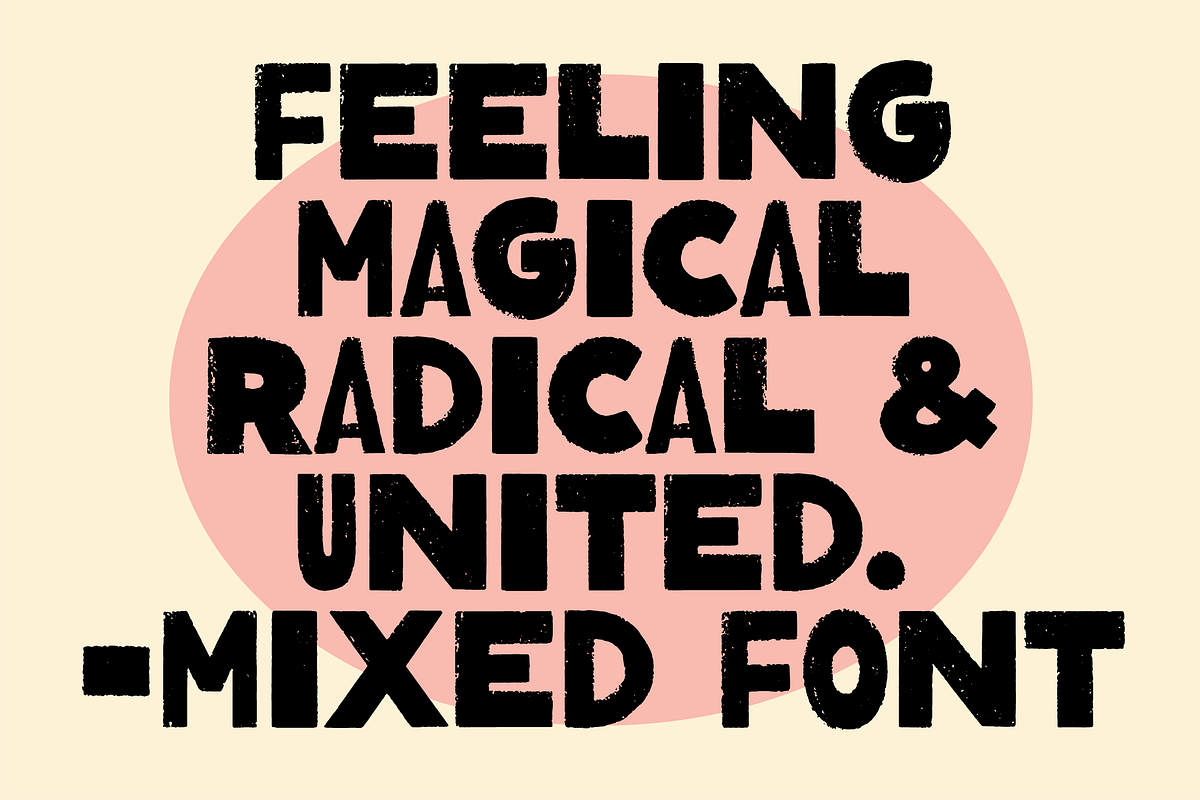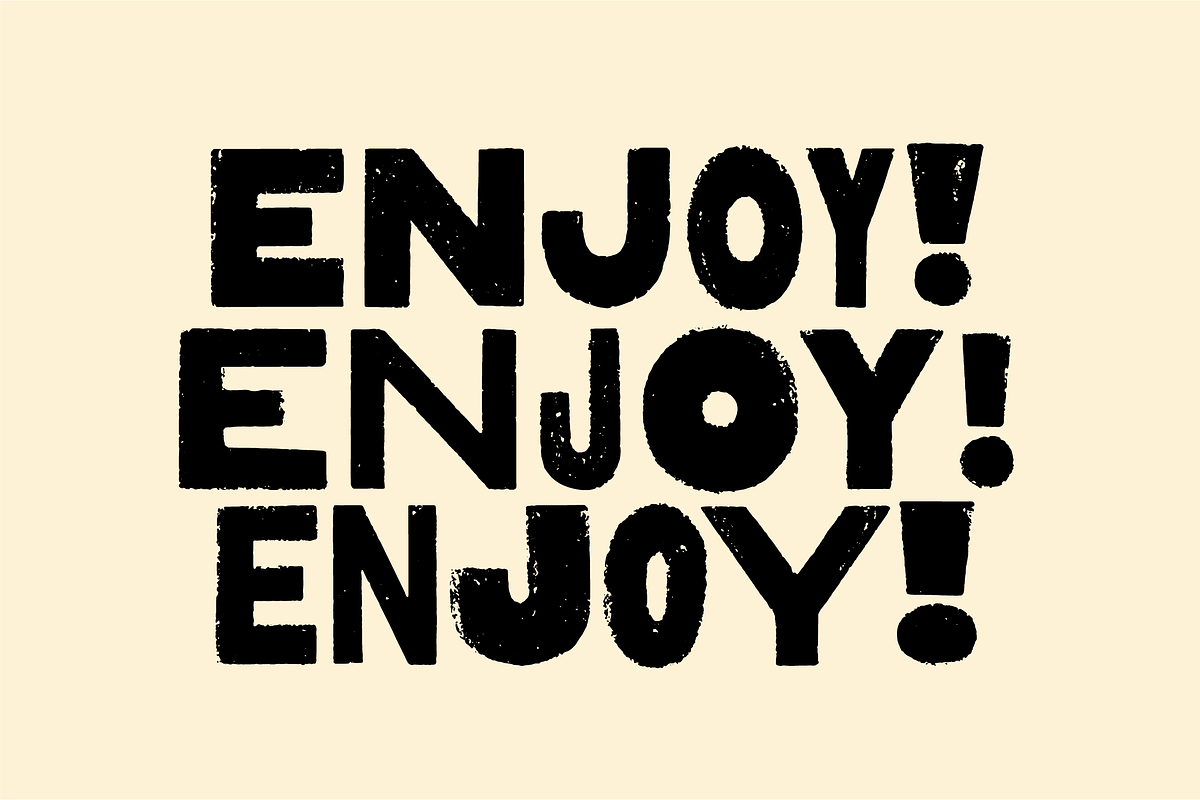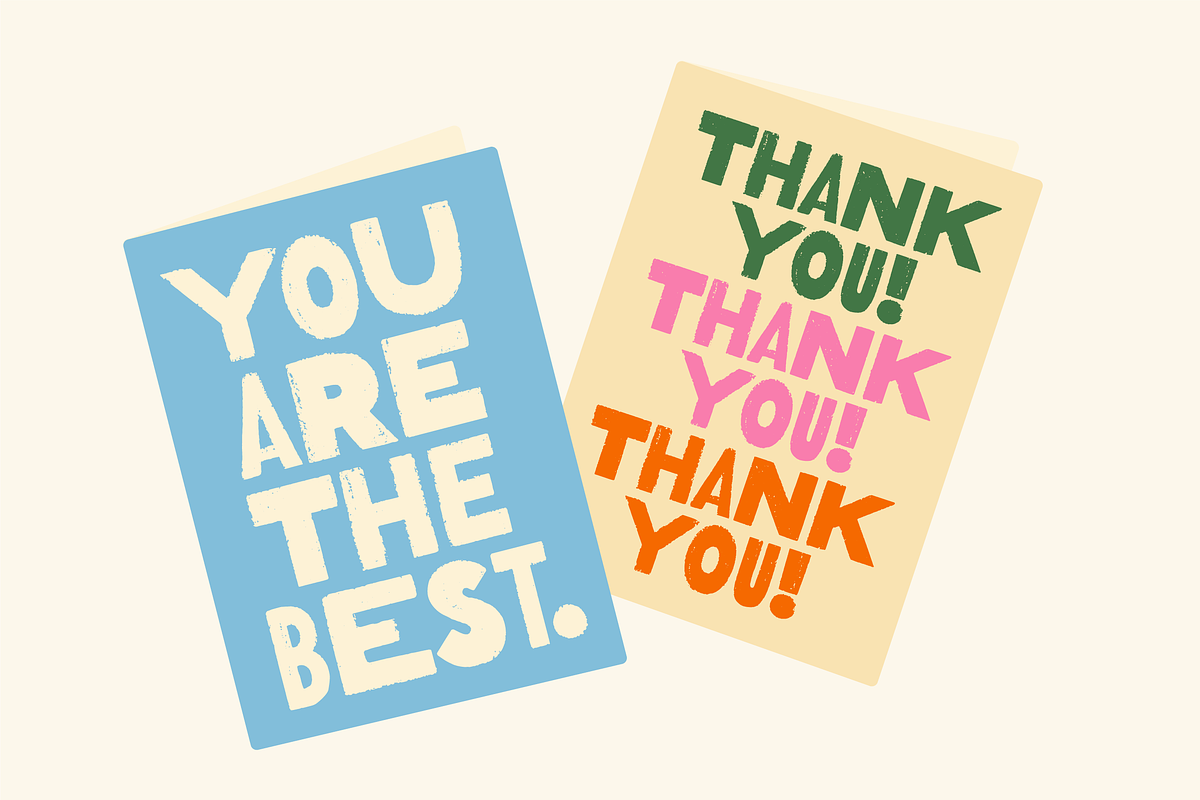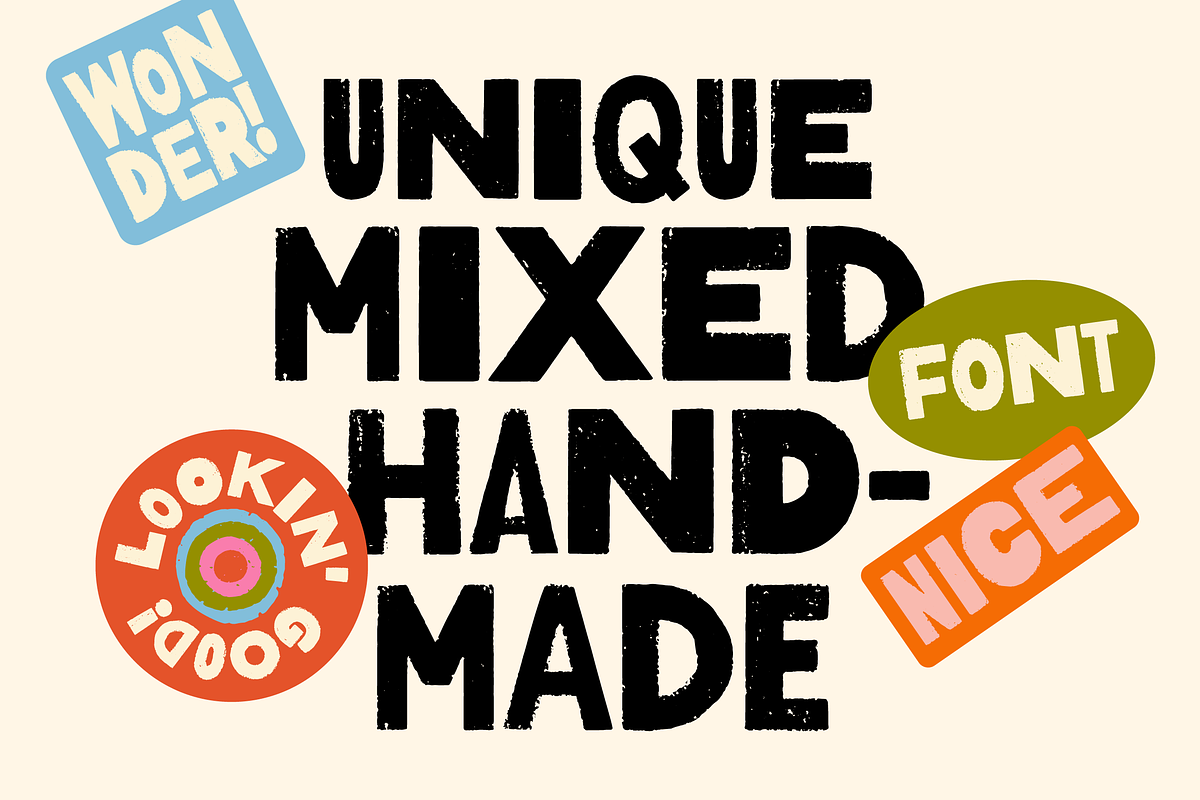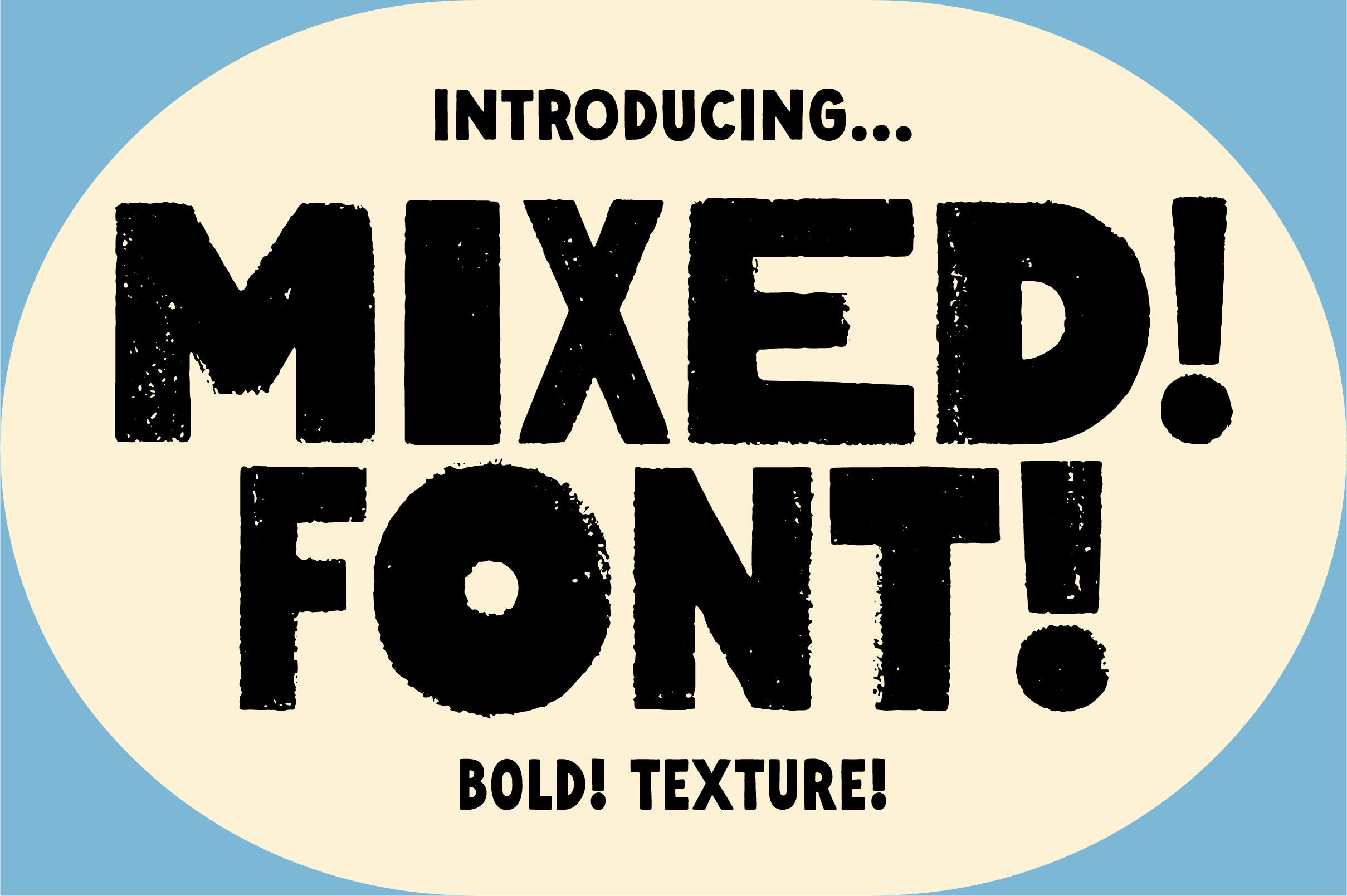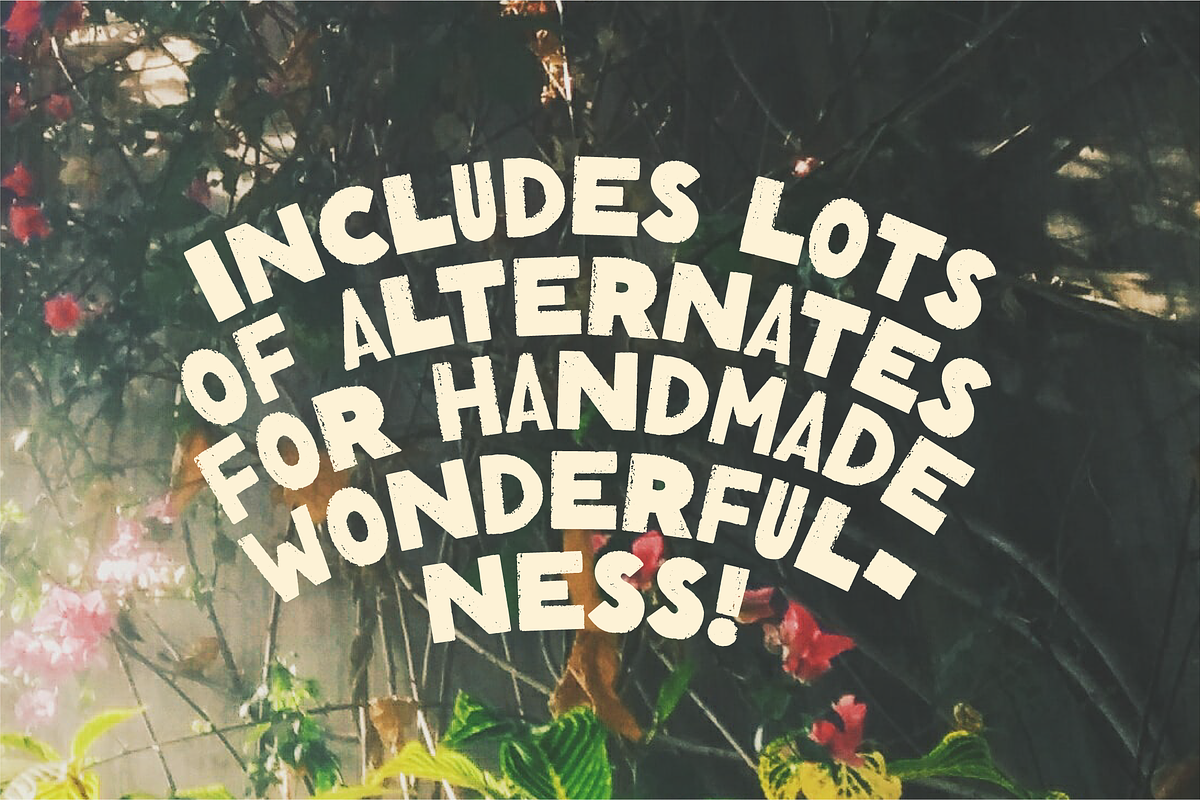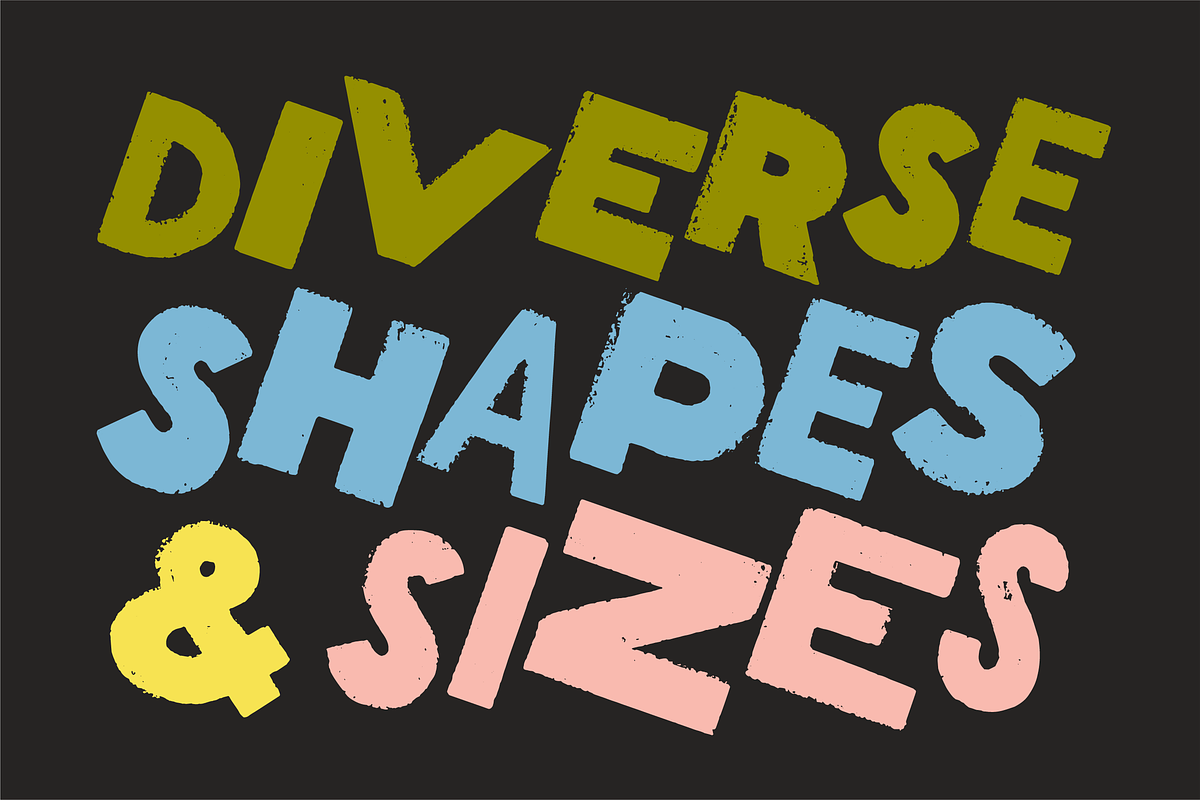
Mixed Font! Handmade! Bold! Texture!
Mixed font! This is a hand-lettered uppercase font inspired by imperfect printed retro and vintage signs. Includes lots of alternates so you can mix and match as much as you want. I drew each character by hand, including alternates. Looks great for logos, quotes, art, signs, titles, and a handmade touch. Enjoy!
What's in the font? Uppercase Letters A-Z! Numbers! Symbols! Punctuation! Alternates! (see slides!)